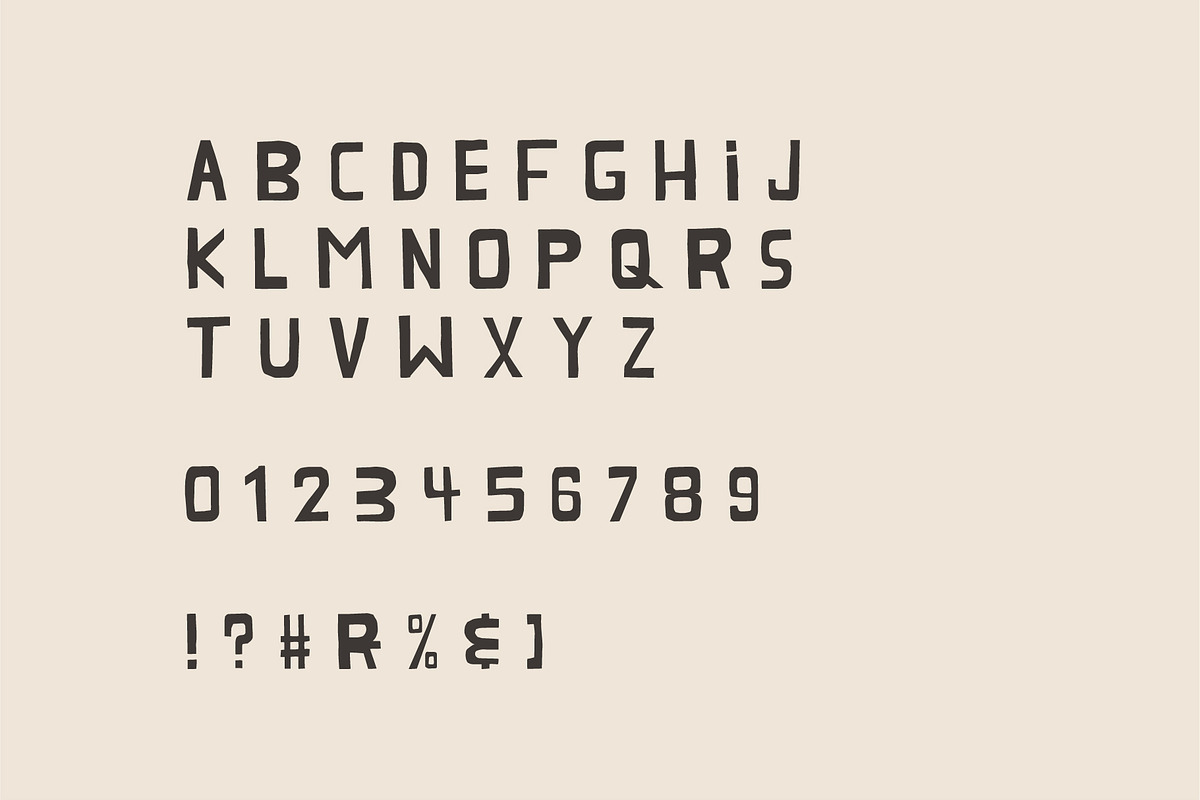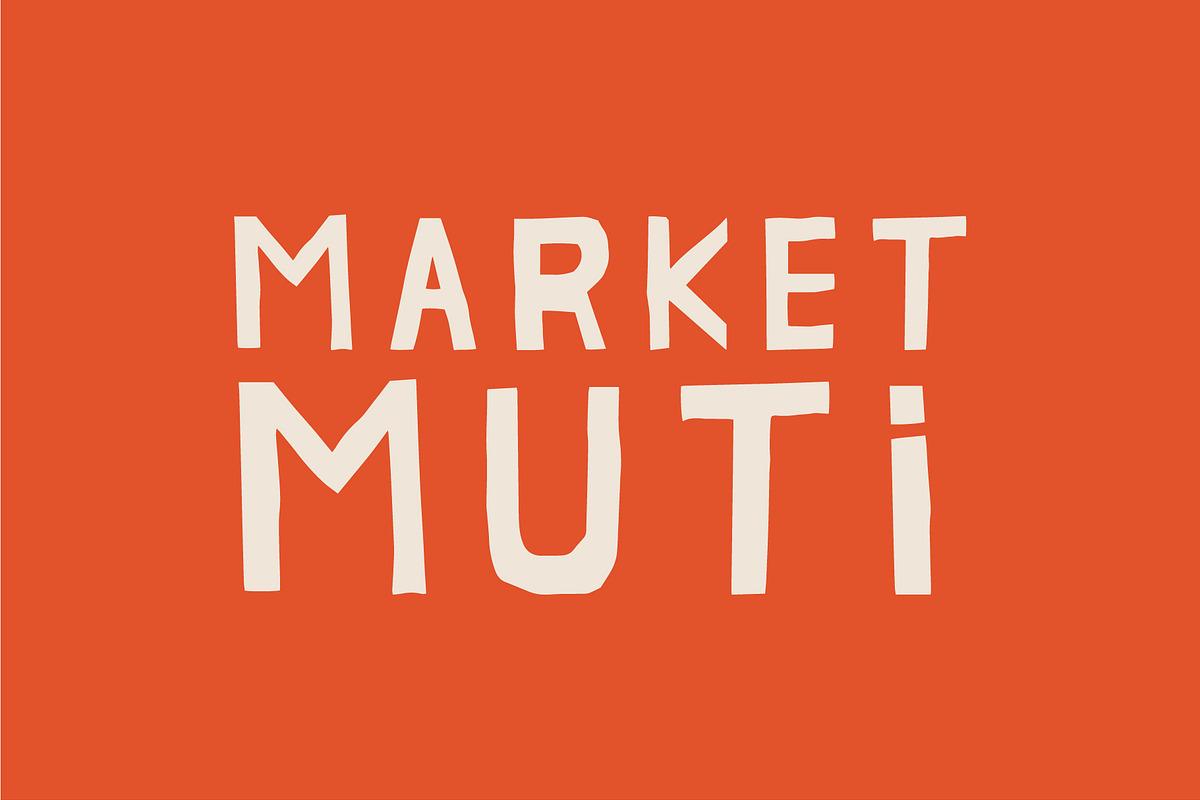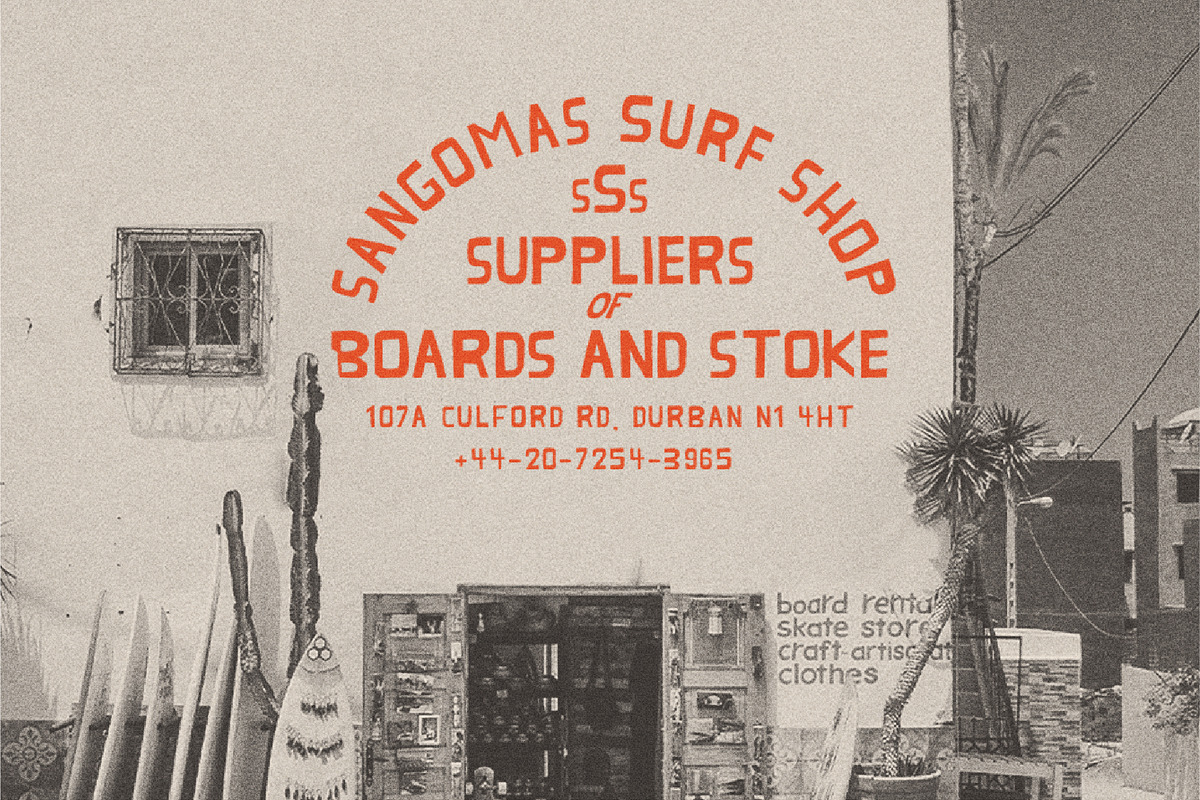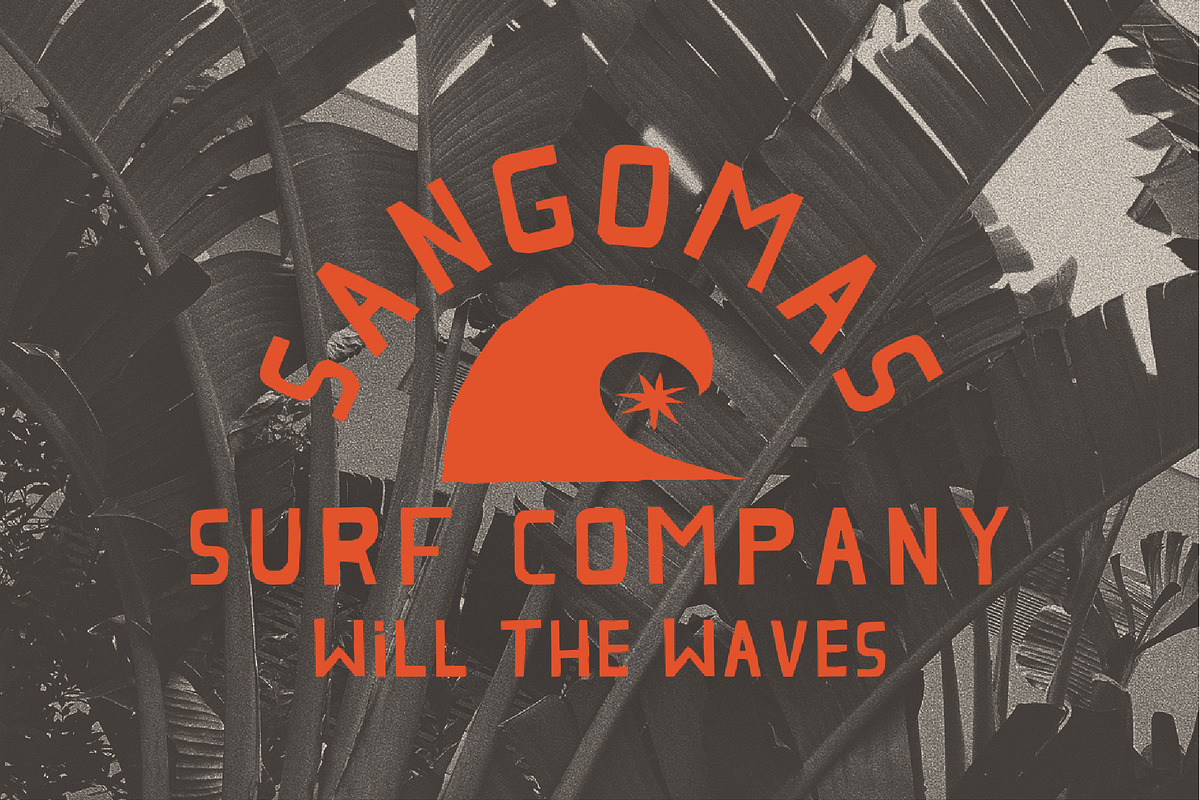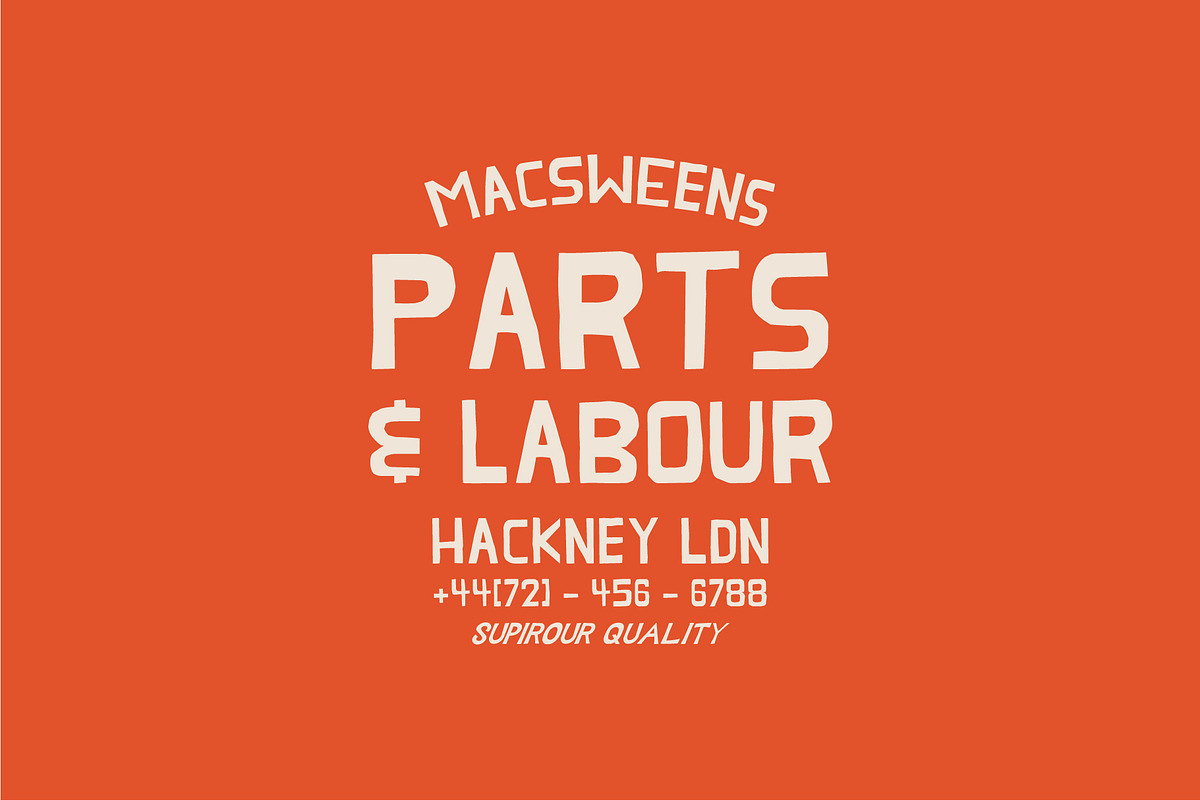
Market Muti
Welcome to Market Muti, a sans serif font to cure all your design needs. Inspired by Human-made and human-spirited hand-painted signage!
Market Muti is a rugged yet refined font that will captivate anyone who sees it. Like a seasoned market vendor, it's both down-to-earth and full of character. Use it on your next project to demand attention and leave a lasting impression.